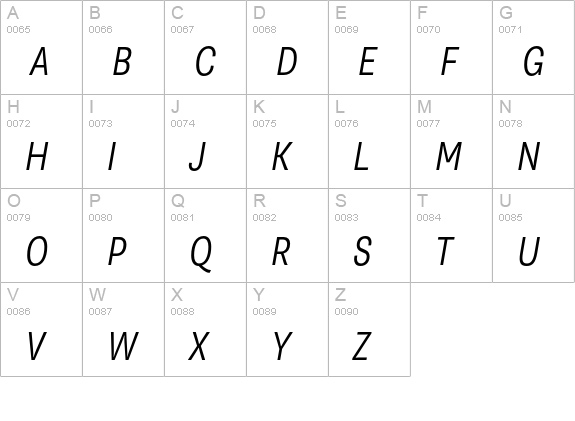
Supria Sans Cond Light Oblique Font Details
Supria Sans Cond Light Oblique is a refined, elegant, condensed-width, italic variant in the Supria typeface family \xE2\x80\x94 well suited to elegant body text, refined sub-headings, and luxury branding.
Supria Sans Cond Light Oblique font is a sleek and elegant typeface that exudes modernity and sophistication. With its slender and slanted design, this font is perfect for adding a touch of style to any project. The clean lines and subtle curves of Supria Sans Cond Light Oblique make it versatile and well-suited for a wide range of applications, from branding to editorial design. What sets this font apart is not only its aesthetic appeal but also its accessibility. Supria Sans Cond Light Oblique is available for free download at FontsMarket.com, making it easy for designers and creatives to access this high-quality typeface without any cost. Whether you're working on a professional project or a personal endeavor, Supria Sans Cond Light Oblique is a fantastic choice that combines both beauty and functionality. Elevate your design projects with this exquisite font today!